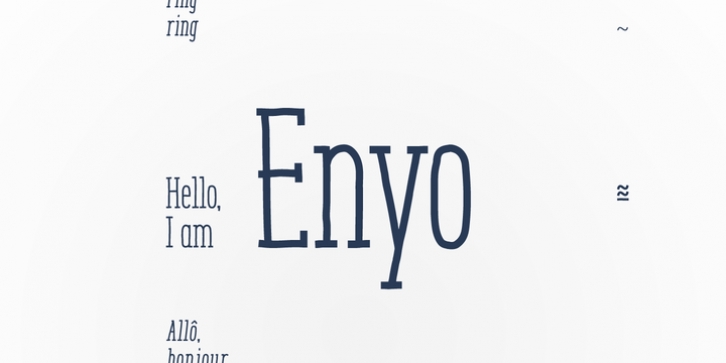
Enyo is a decorative, display, serif handwritten font. This font will provide an informal look to your work! It can be used for small ammount of text, and specially for display usage because of its glyph quality.
Enyo offers OpenType features, including ligatures, alternates, smallcaps, scientific superior/inferior figures, oldstyle figures, fractions, slashed zero, and kerning. This handwritten font also has a large glyph coverage.